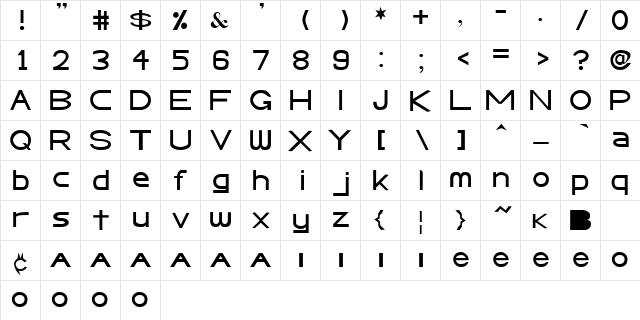
Abtechia 1
Design Context for Abtechia Typeface
Abtechia has a distinctly futuristic character, with geometric precision and clean angles that feel at home in technology, gaming, and sci-fi contexts.
Pro Tip: Use Abtechia in combination with a neutral sans for body text. Let it define the brand voice in headlines while keeping reading comfortable elsewhere.